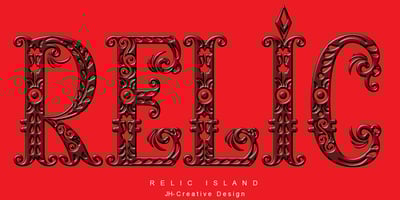
Relic Island 1
Relic Island 1 font
Relic Island 1 Font Family was designed by Ibram Syah and published by Jehansyah. Relic Island 1 contains 4 styles and family package options. this is a very special curving font, designed in such a way to add an old feel but still maintain a modern feel, there are several options that you can use and get creative with it